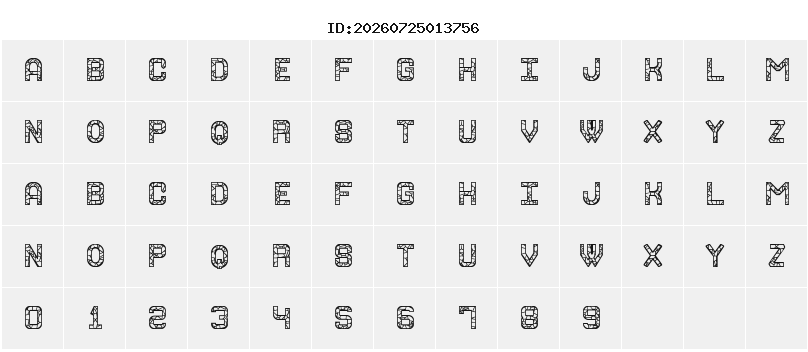
Granite Rock St Preview
• Font Name: Granite Rock St
• Font ID: Granite Rock St:Version 1.00
• Full Font Name: Granite Rock St
• Version: Version 1.00 September 2, 2016, initial release
• PostScript Name: GraniteRockSt
• Designer: This font is an original work of southype dot com
About Granite Rock St.ttf
Granite Rock St.ttf is a modern, elegant sans-serif font designed for ultimate readability and visual harmony. Perfect for branding, headlines, web design, and print materials.